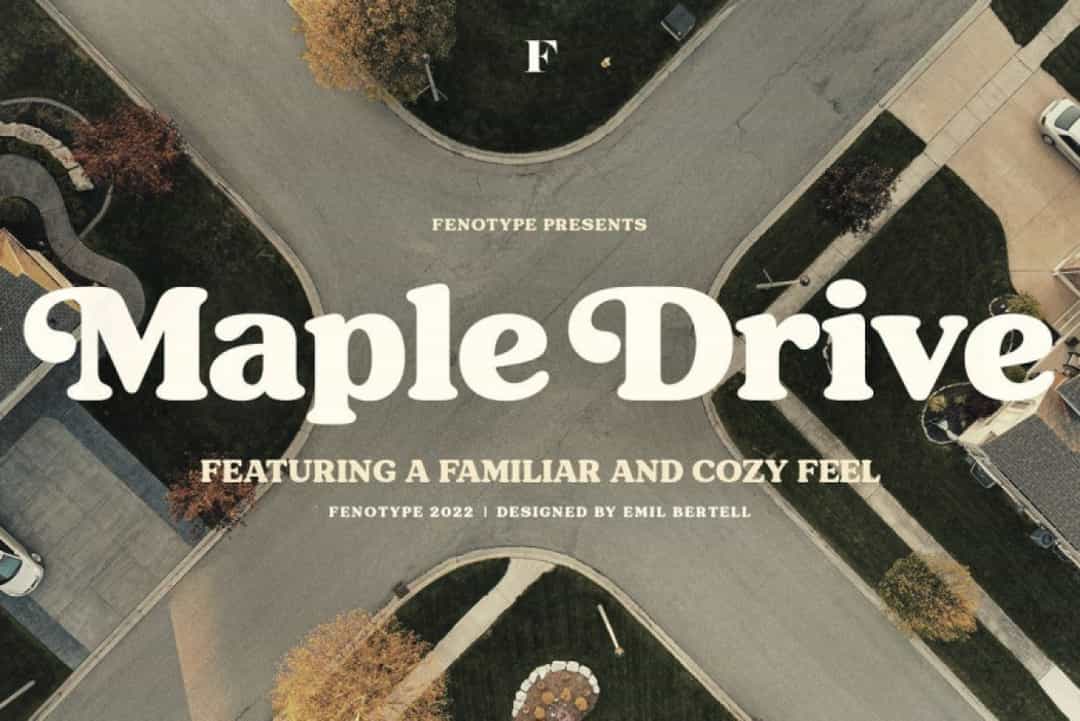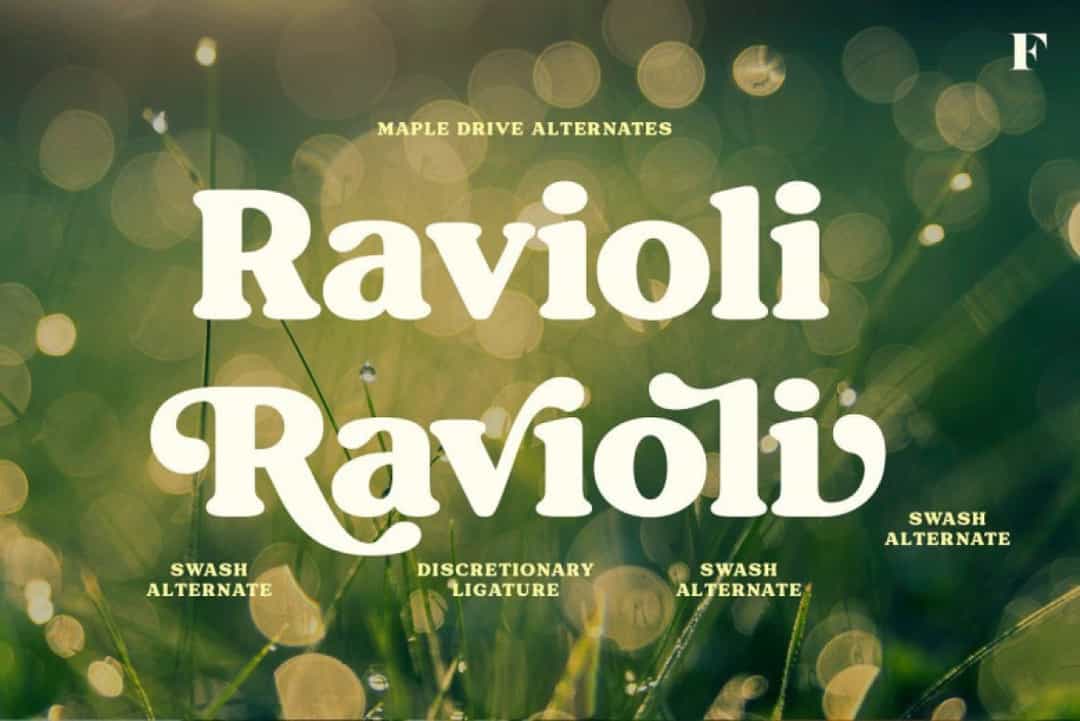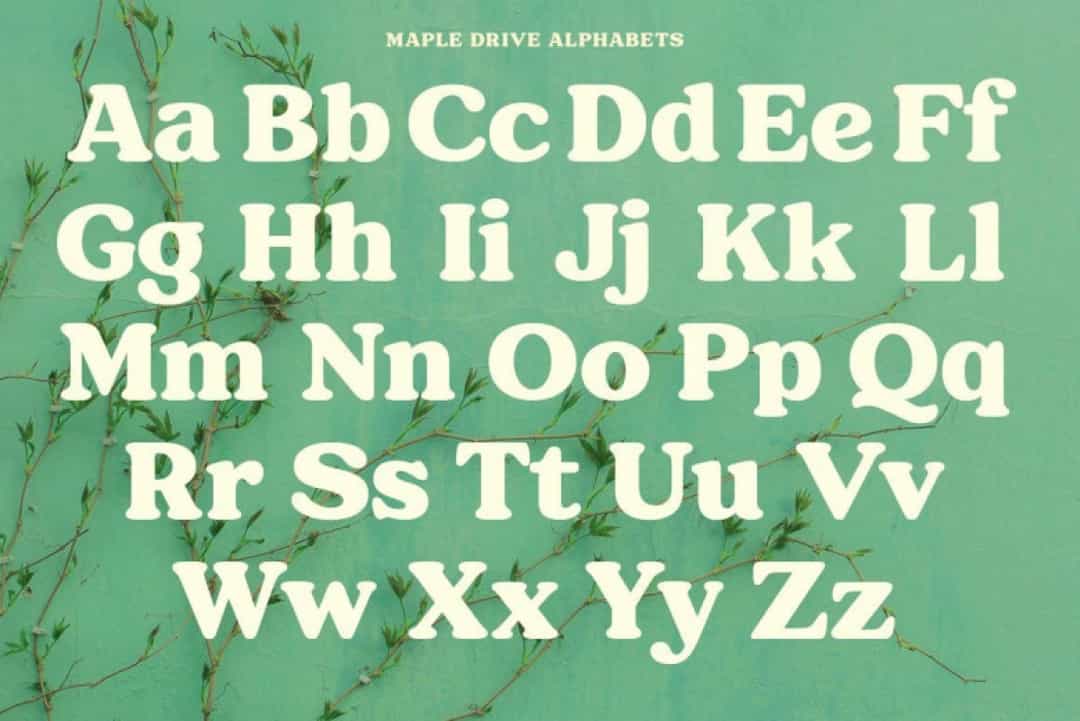
Maple Drive is an eye-catching round serif typeface with an inviting and familiar aesthetic, creating a vibrant retro feeling while being refined for modern times. Maple Drive can serve as an eye-catching logotype in publications, headlines, posters advertising campaigns or packaging as well as serving other needs such as packaging.